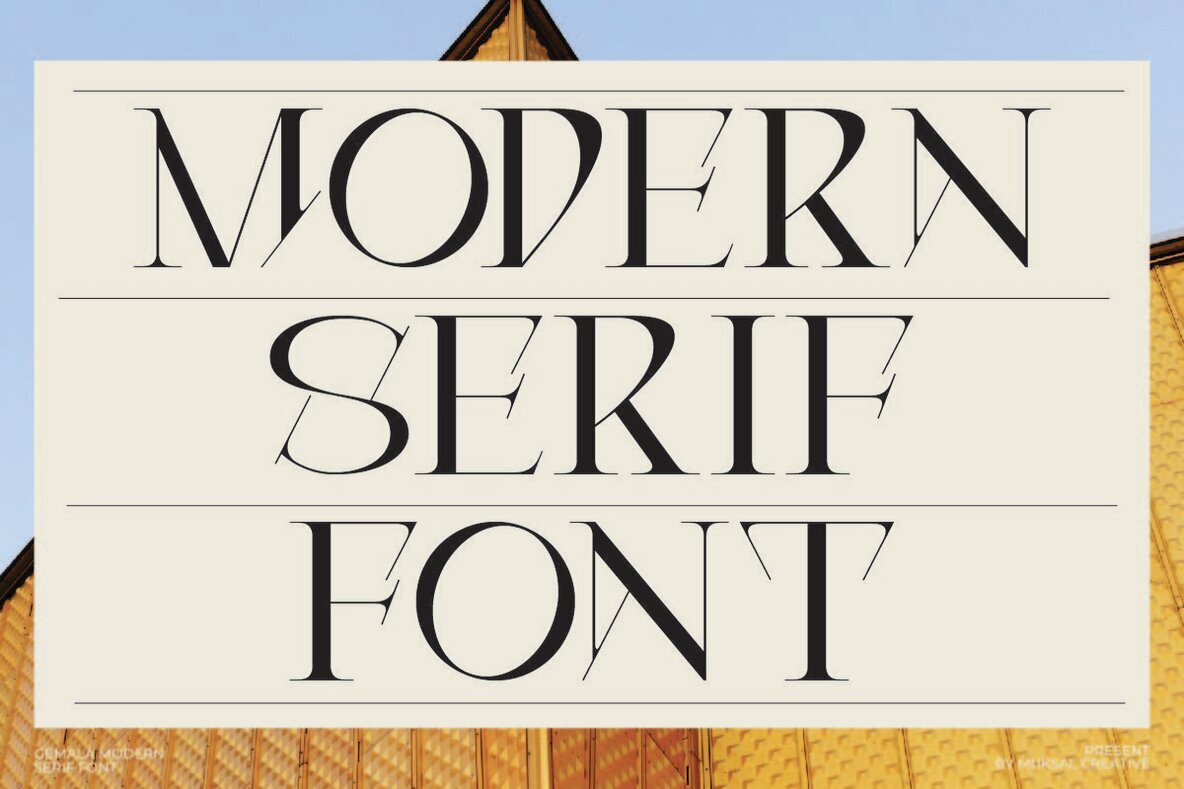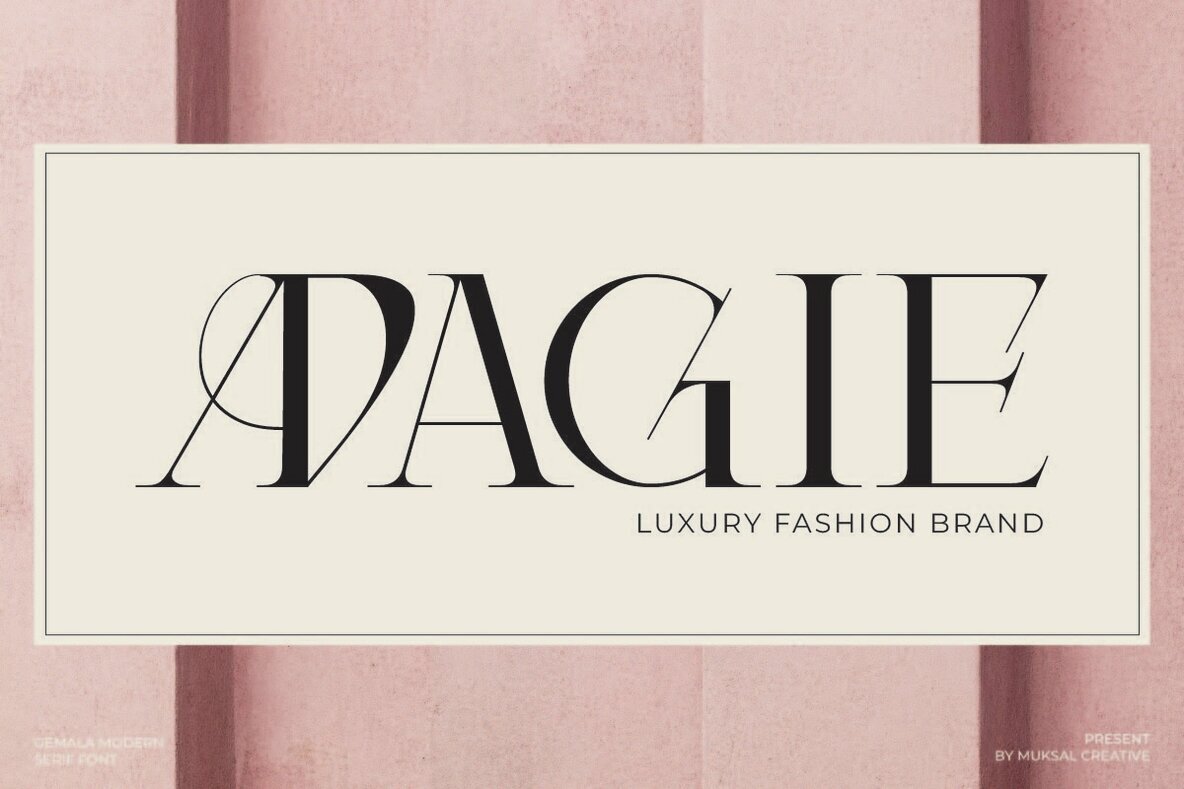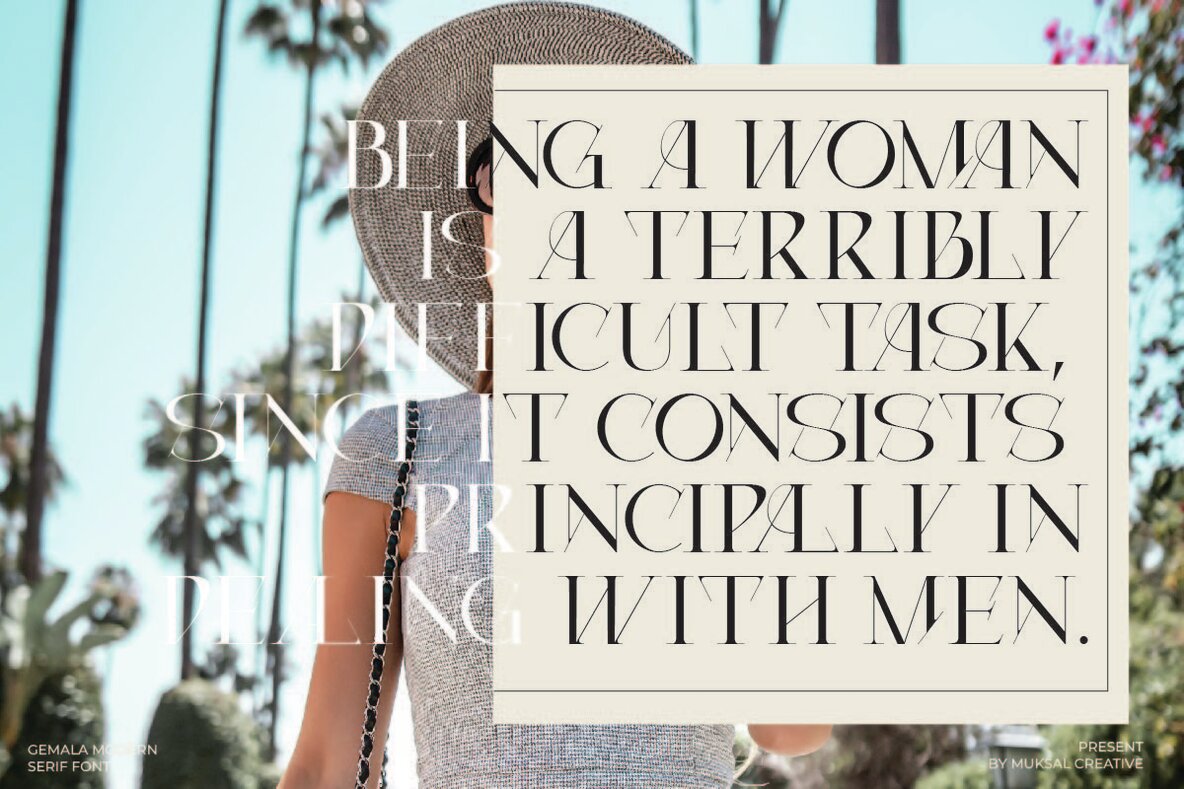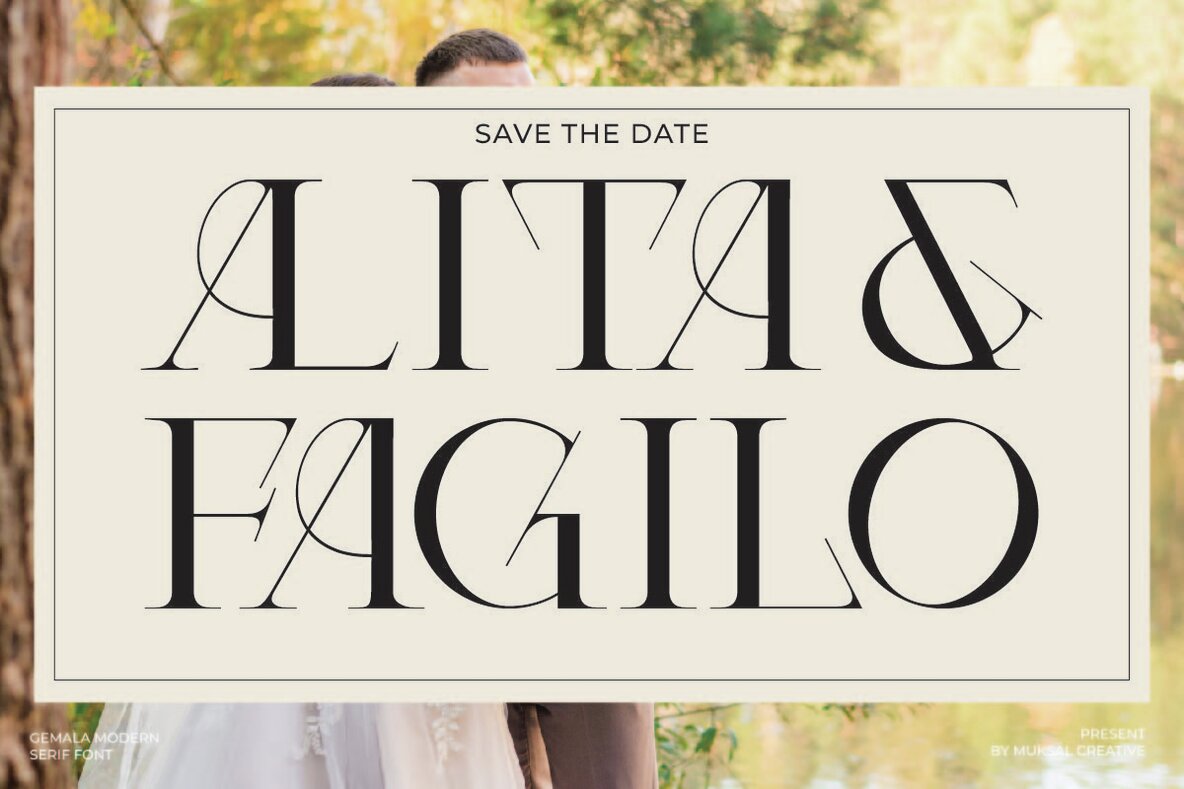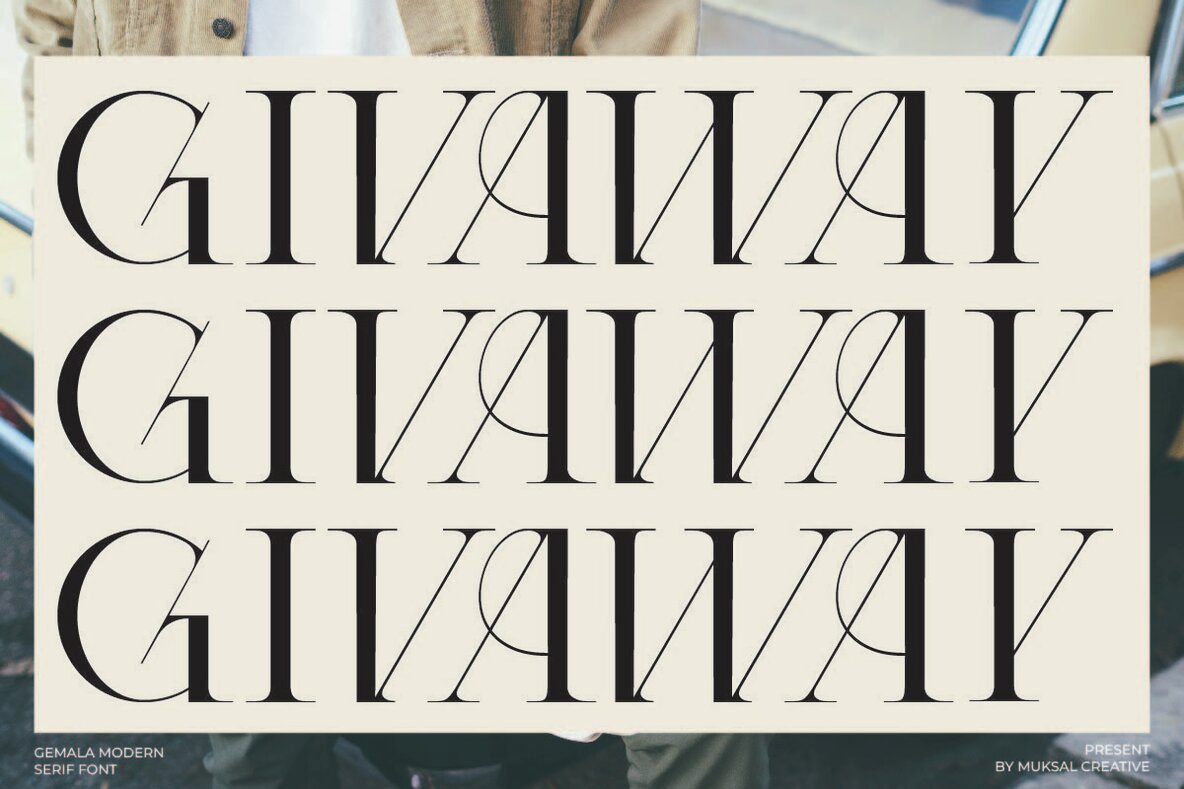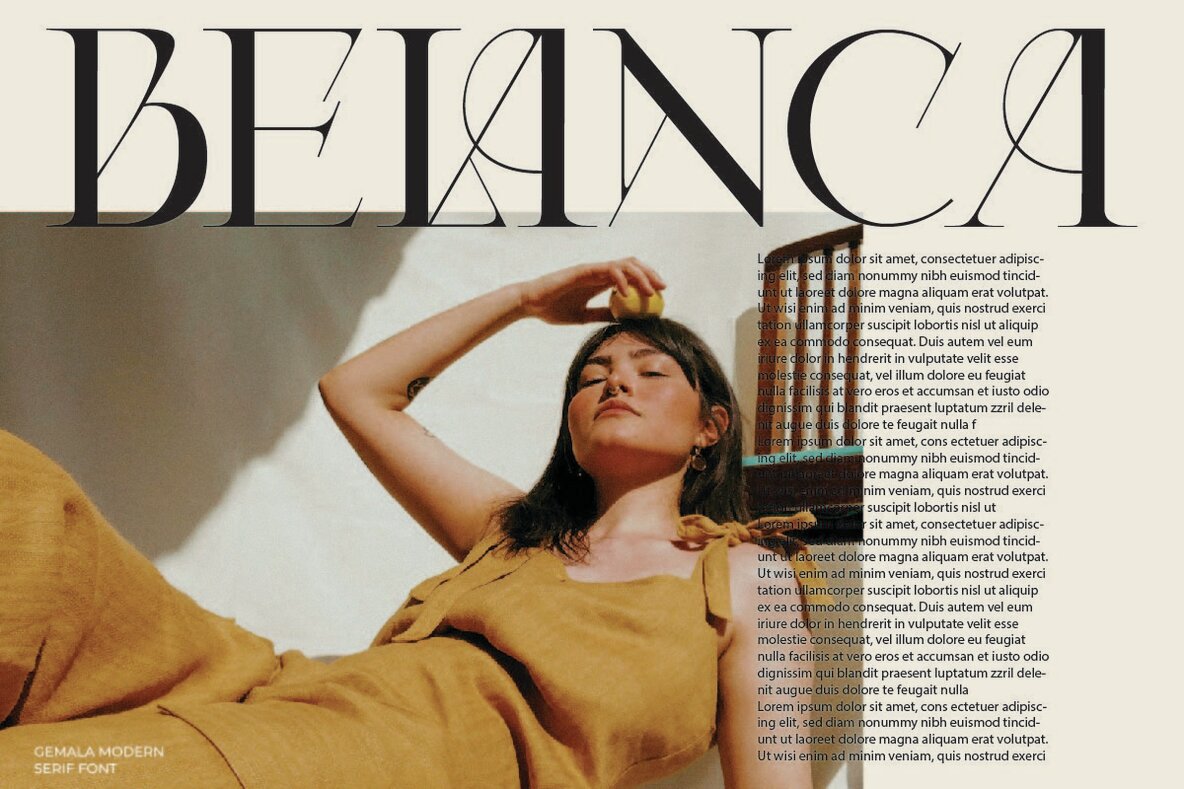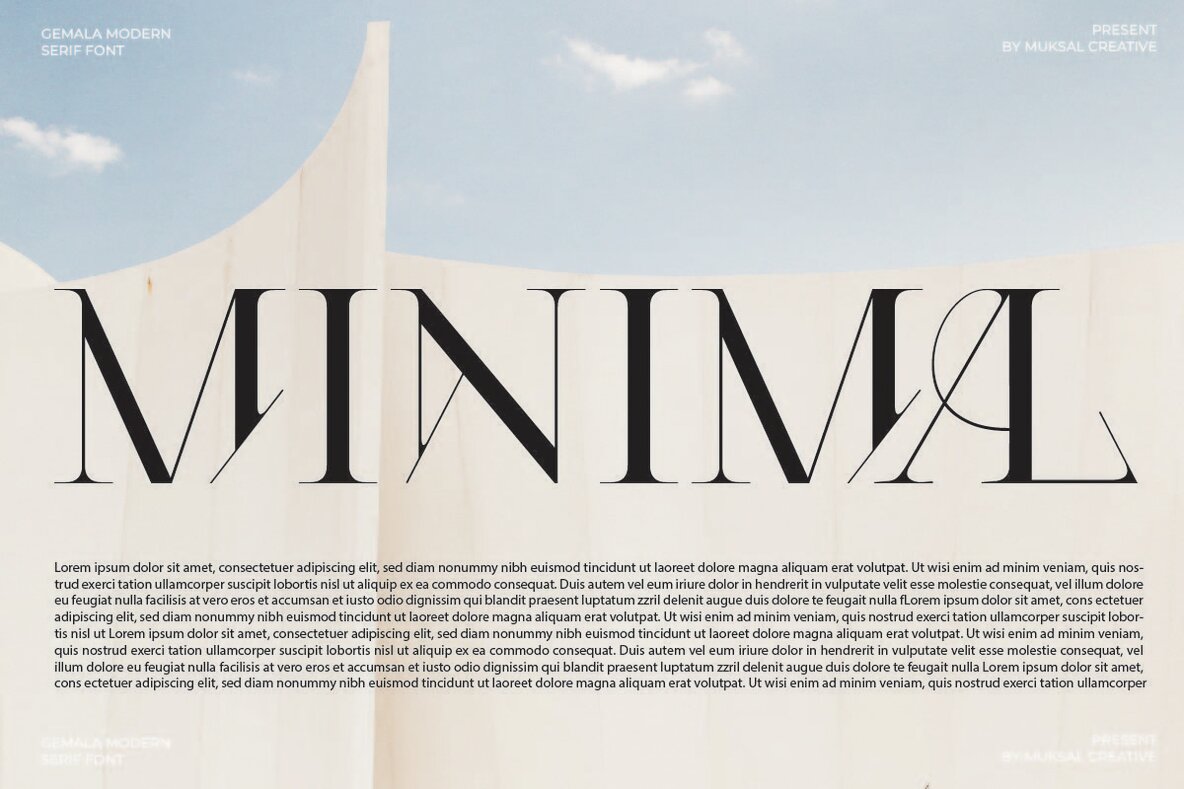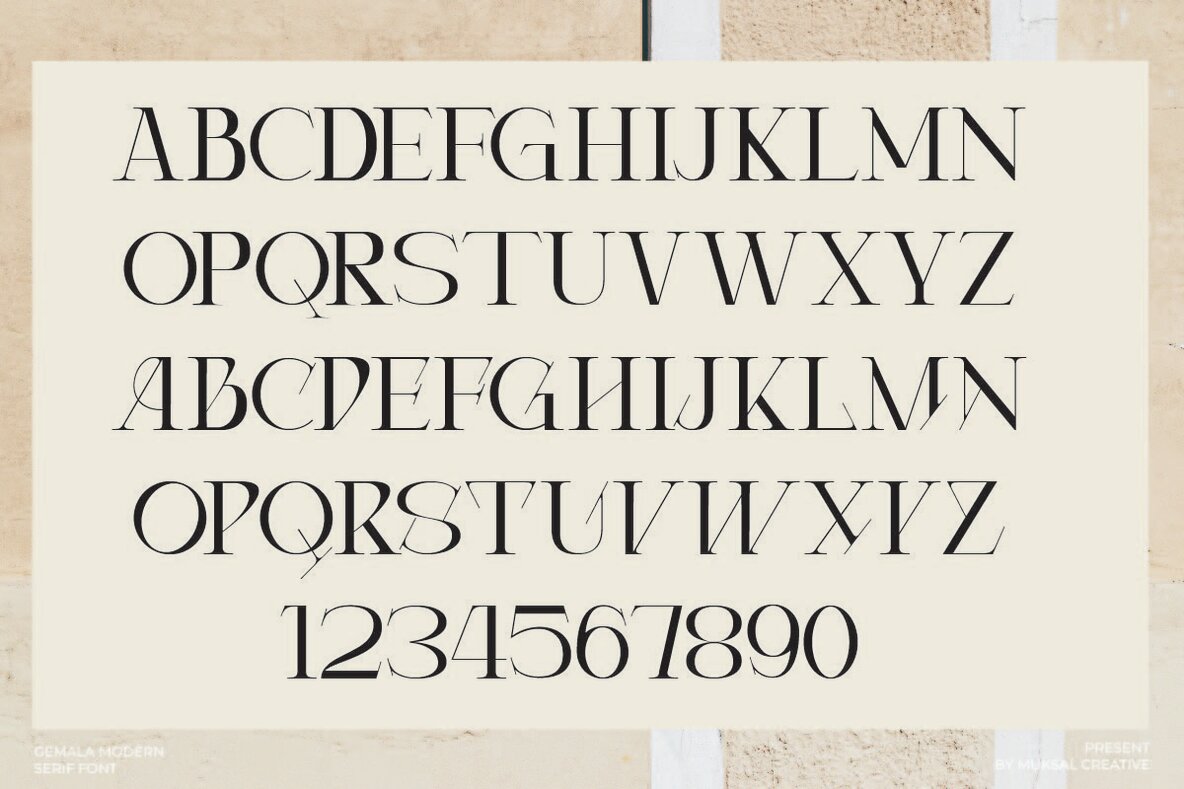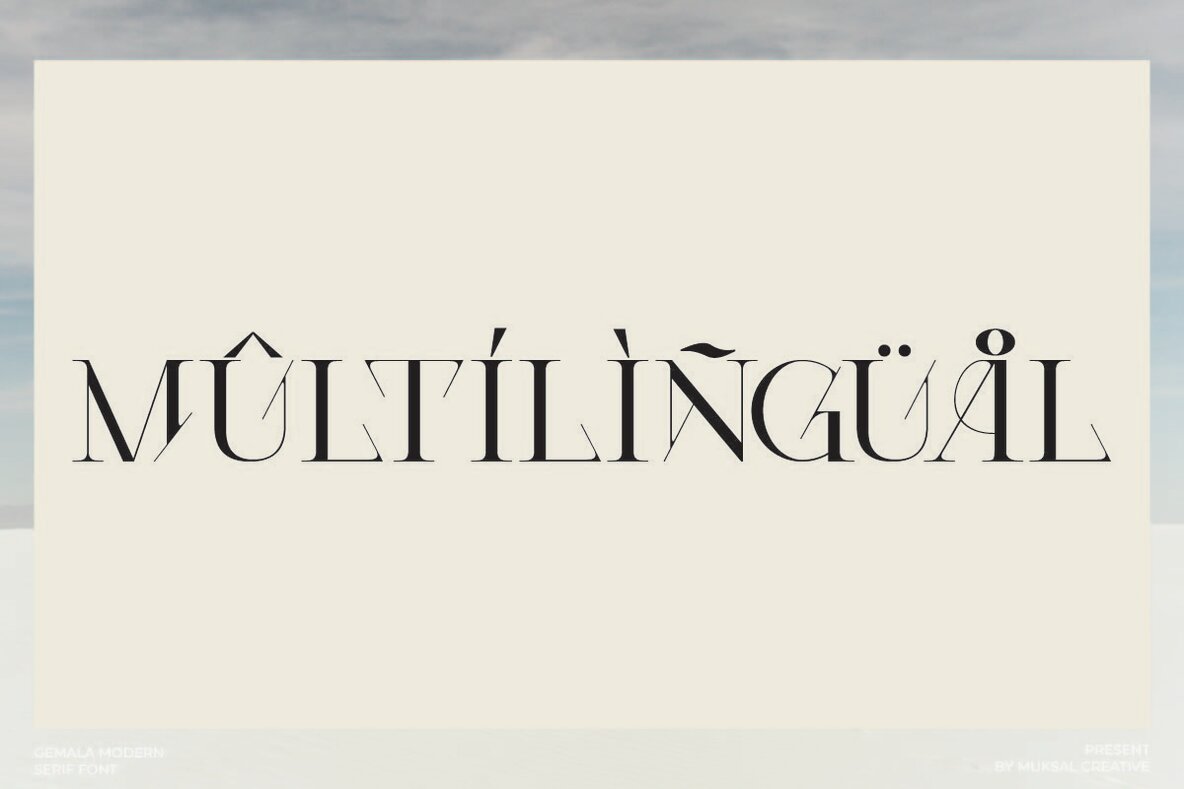
Gemala Font
Gemala Regular
This serif font exudes elegance and sophistication with its high contrast and refined details. Perfect for luxury branding, editorial design, wedding invitations, and classic logos, this font brings a timeless and stylish touch to any high-end project.